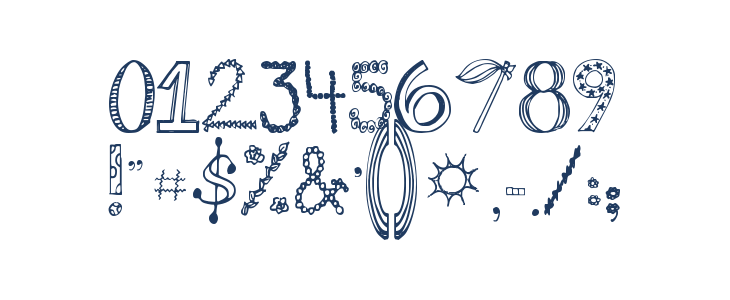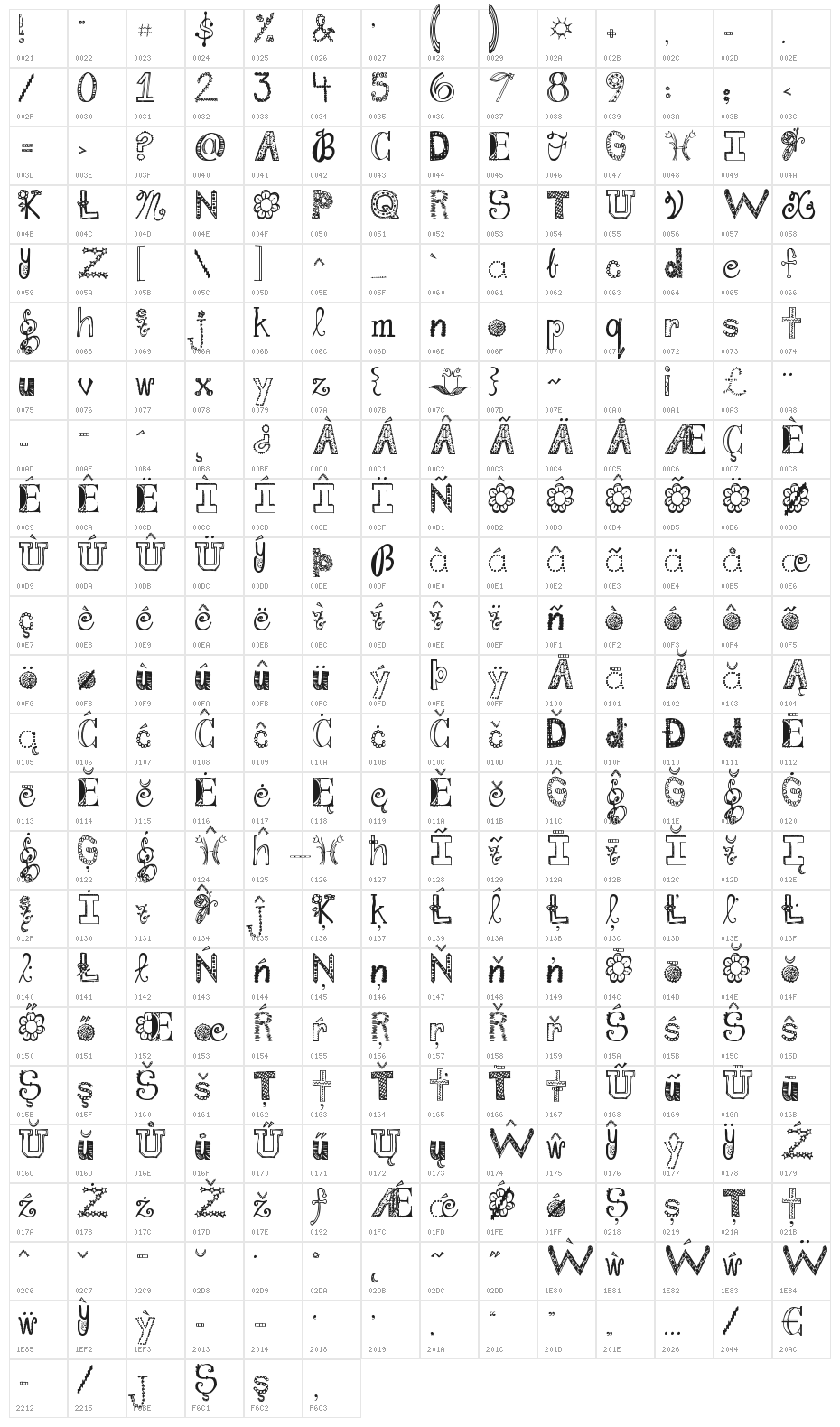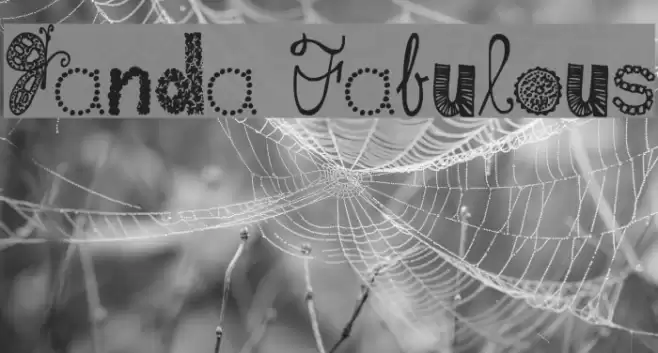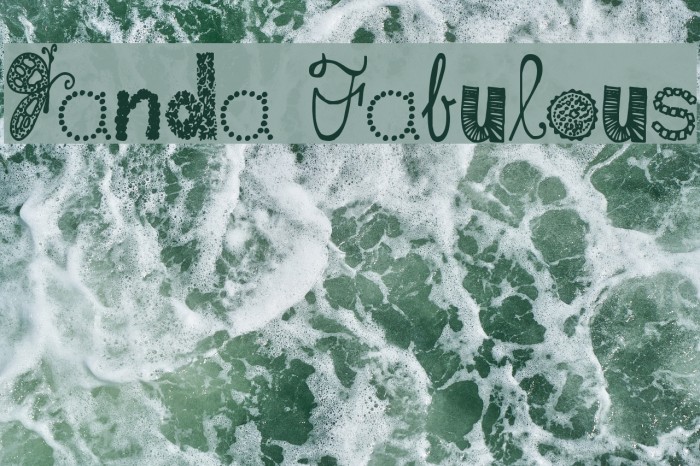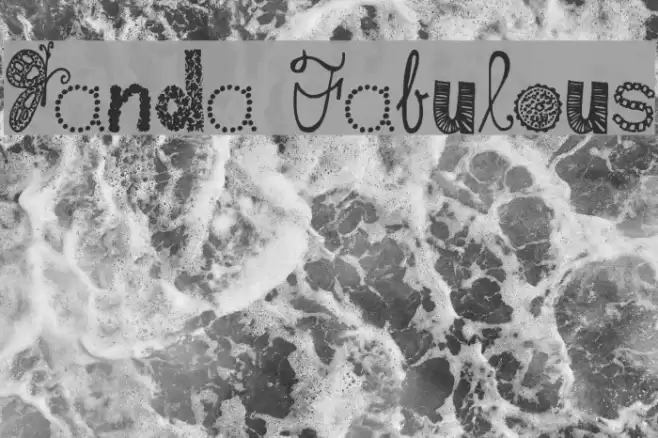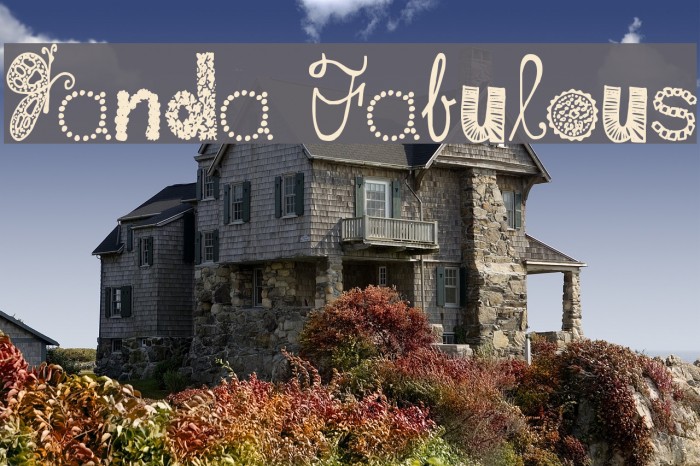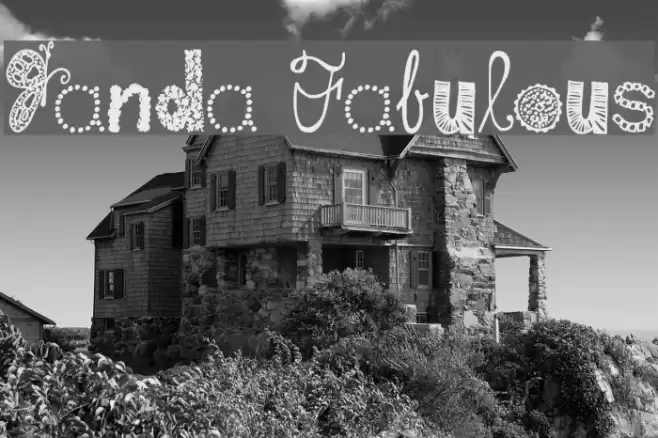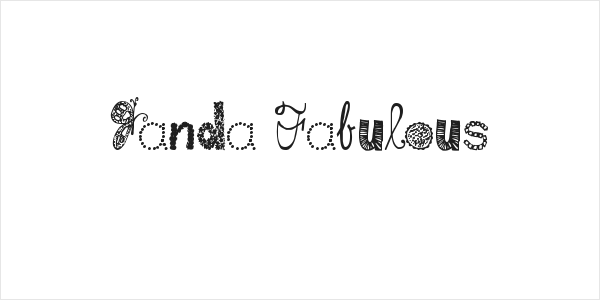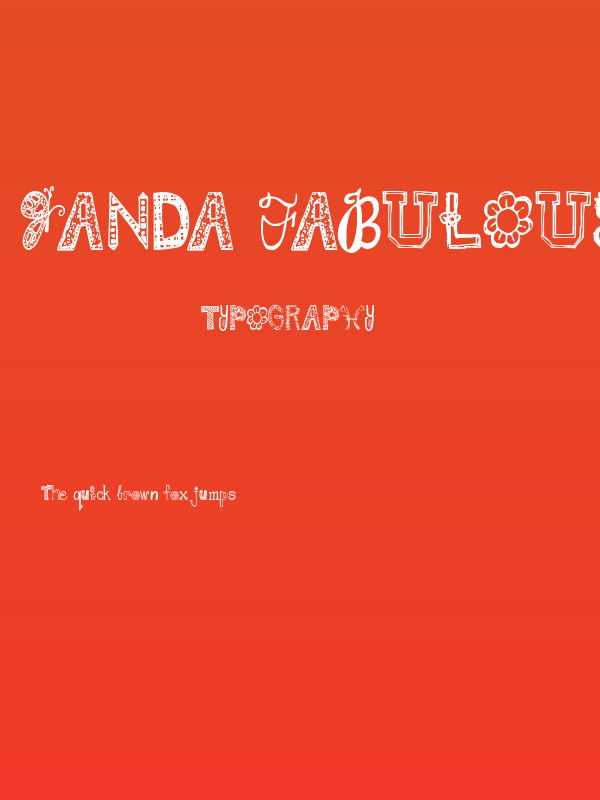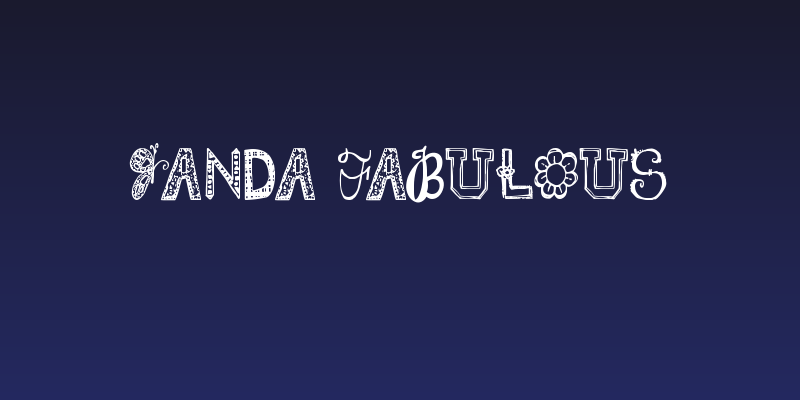
Janda Fabulous Font
Janda Fabulous Description
This playful and whimsical font features a variety of decorative elements within each character, creating a unique and eye-catching style. Each letter is adorned with different patterns, such as polka dots, stripes, and floral motifs, giving it a handcrafted and artistic feel. The font combines both uppercase and lowercase letters with a mix of bold and intricate designs, making it ideal for creative projects. The numbers and special characters follow the same decorative theme, ensuring consistency across all elements. This font is perfect for adding a fun and lively touch to any design.
| Proposed Projects | Ideal for children's book covers, playful invitations, arts and crafts projects, and creative branding. |